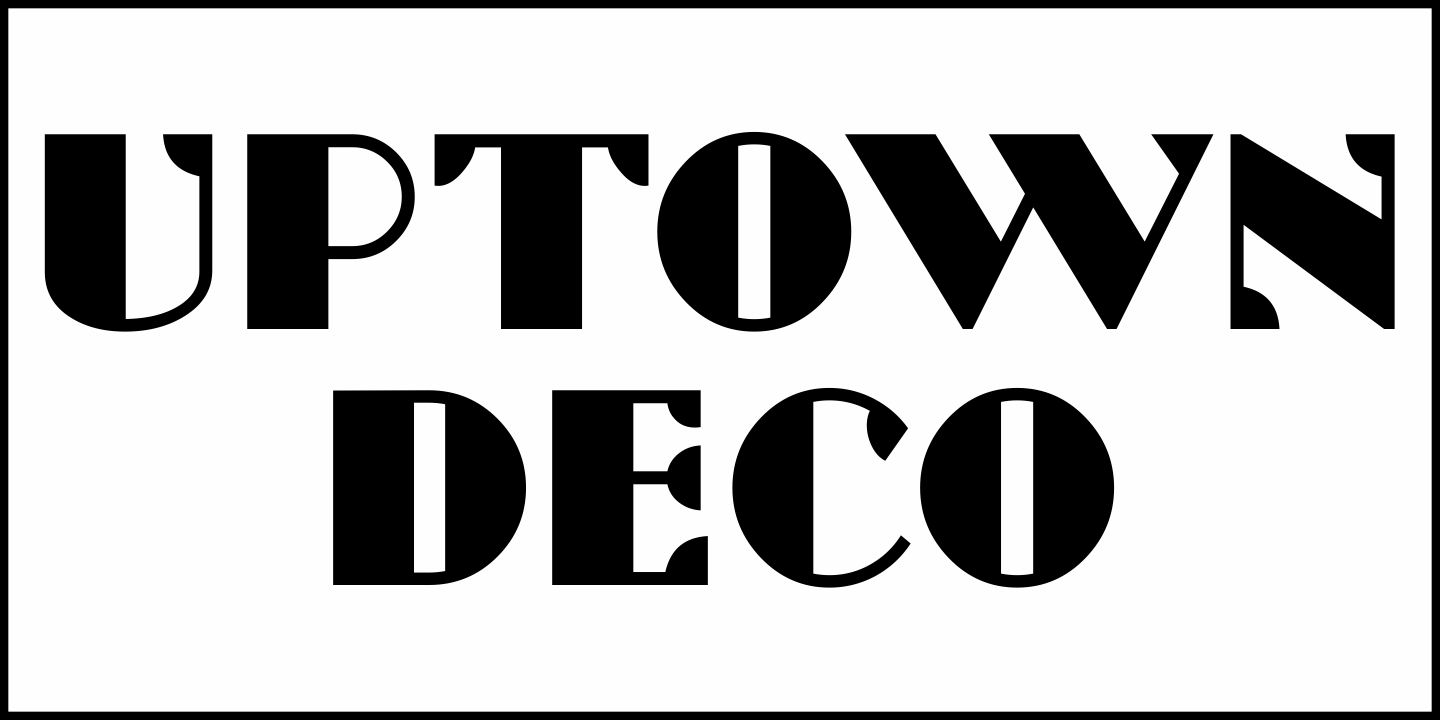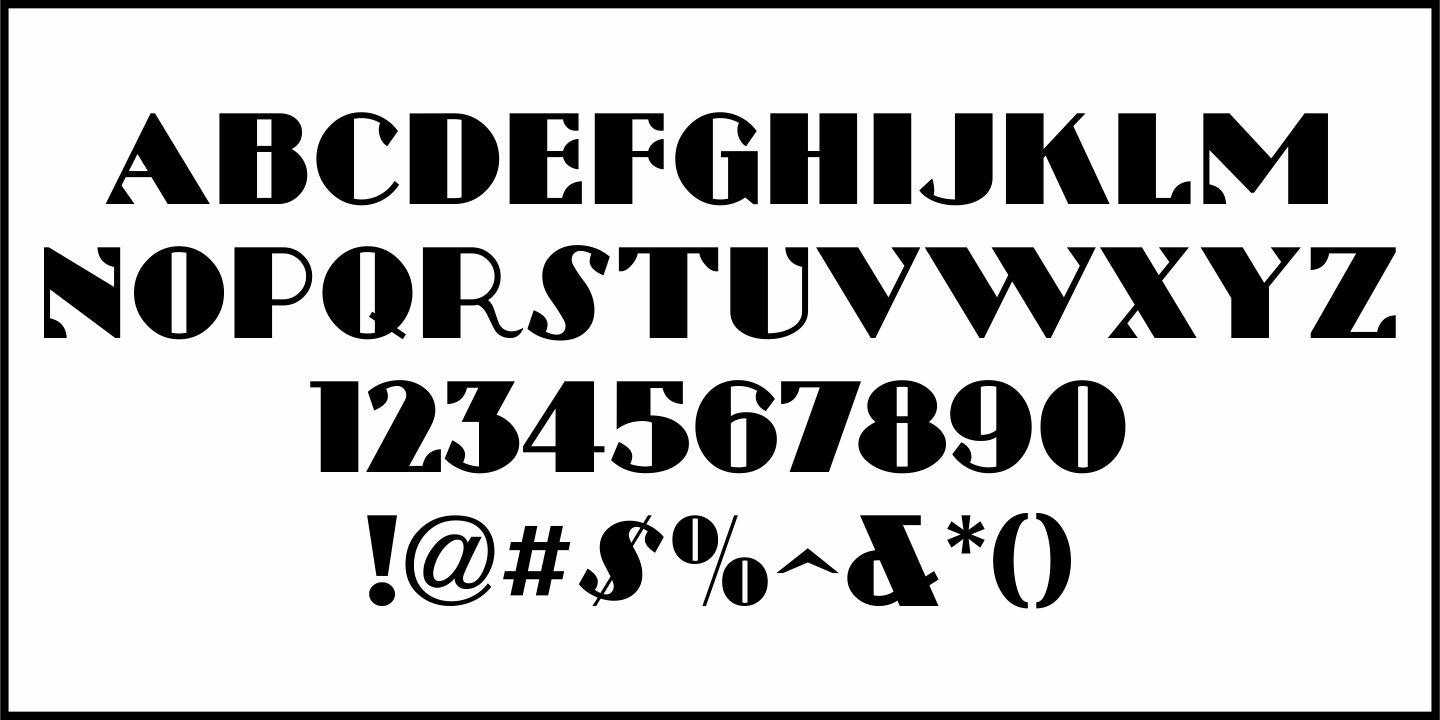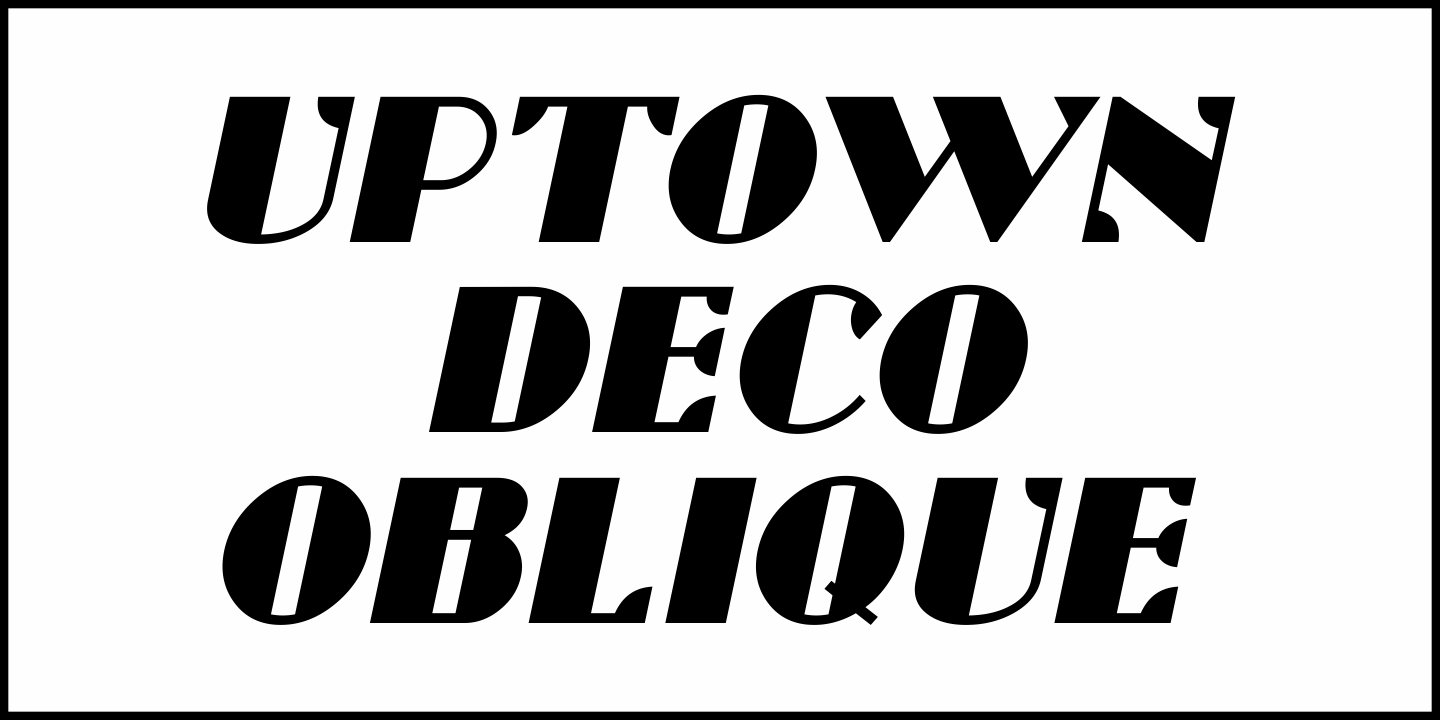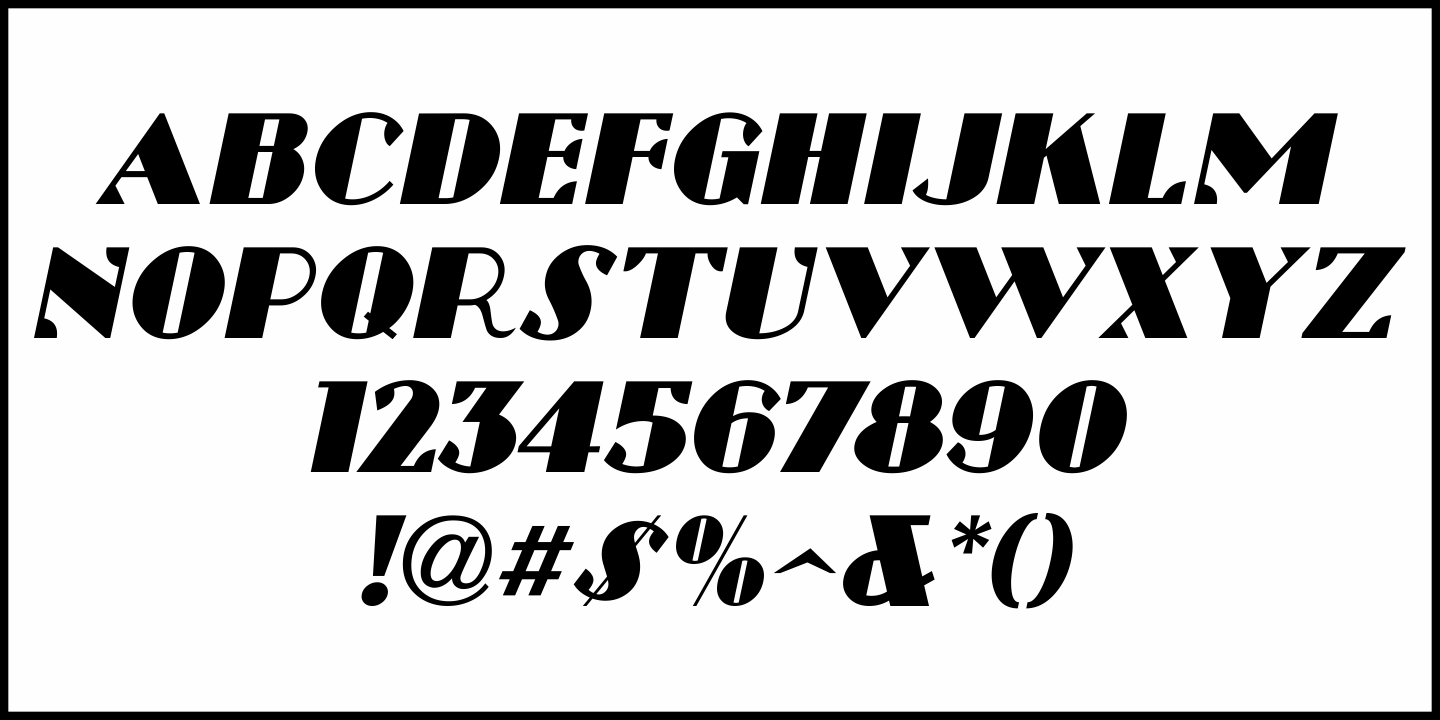
Uptown Deco
The October 4, 1929 edition of Film Daily carried an ad for Universal Pictures for their "complete service contract in sound", as the transition from silent to talking pictures was well under way.
Much of the ad copy was hand lettered in an early "thick-and-thin" Art Deco type design with an interesting mix of added curved and angular 'serif embellishments' to an otherwise sans-serif alphabet.
This has be redrawn digitally as Uptown Deco JNL, and is available in both regular and oblique versions.